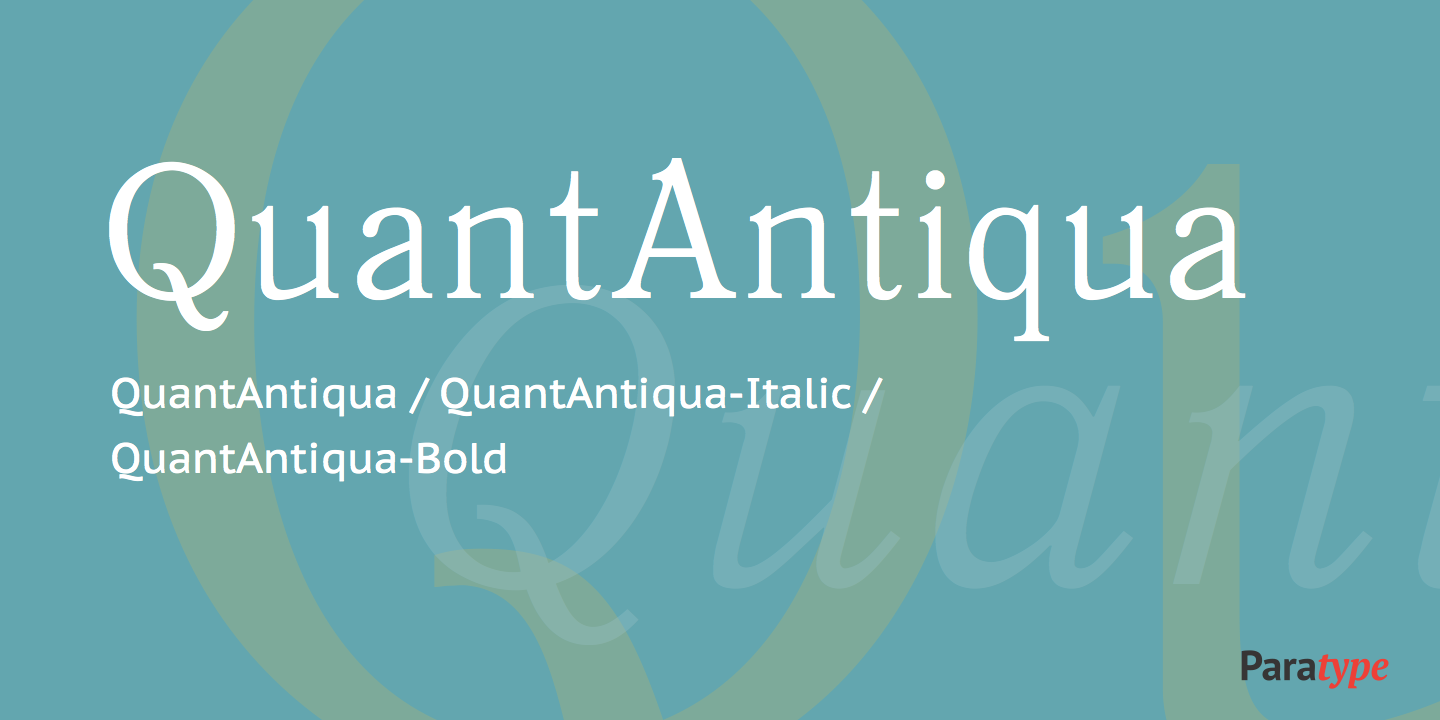
The Quant Antiqua Font is perfect for financial reports, investment publications, academic research papers, statistical analysis documents, data visualization projects, scientific journals, economic forecasting materials, and quantitative research communications that require classical elegance with mathematical precision and scholarly authority.
What makes the Quant Antiqua Font Free Download so exciting is its masterful fusion of traditional serif elegance with contemporary analytical precision, creating a typeface that embodies both scholarly tradition and modern quantitative rigor. This font combines classical proportions with enhanced numerical clarity, featuring optimized figures and mathematical symbols that ensure exceptional readability in data-heavy documents. Its distinctive character bridges the gap between historical academic typography and contemporary financial communication, making it ideal for professionals who must convey complex quantitative information with intellectual authority and timeless sophistication.
The Quant Antiqua Font family encompasses comprehensive weight options from Light to Bold, each maintaining the font's signature blend of classical elegance and quantitative functionality. The collection includes Regular, Medium, and Bold styles with enhanced numerical sets, mathematical symbols, and extensive punctuation options optimized for financial and scientific applications. This specialized font system ensures analysts and researchers have access to typography that performs exceptionally well with both textual content and numerical data while preserving the scholarly aesthetic essential for academic and professional credibility.
Essential for financial institutions, research organizations, academic publishers, and consulting firms requiring typography that conveys both intellectual authority and analytical precision. The font's scholarly appeal makes it invaluable for economists, data scientists, and professional analysts developing communications that must balance classical sophistication with modern quantitative demands. Download Quant Antiqua Font Free Download today and elevate your analytical communications with this exceptional typeface that perfectly harmonizes traditional academic elegance with contemporary quantitative precision.